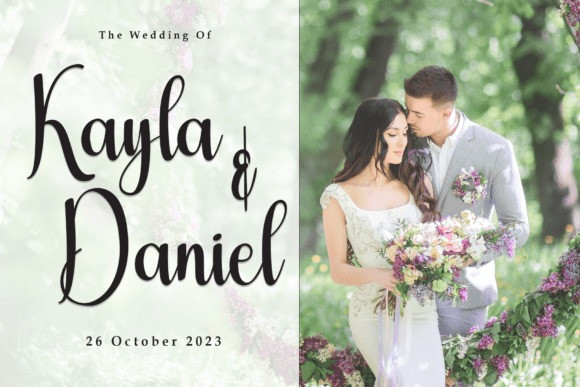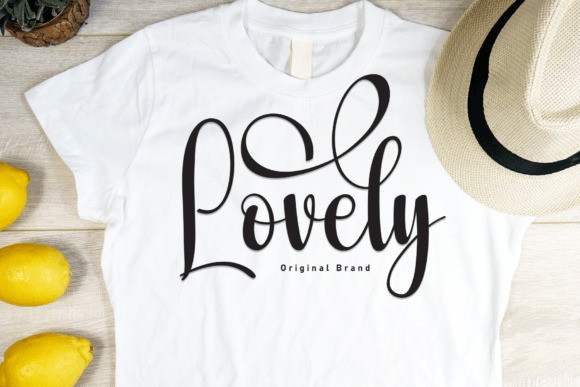
Umbrella Script Font
Umbrella Script Font is a charming handwritten font adorned with graceful swashes, adding a touch of elegance to your text. Its flowing strokes capture the beauty of handcrafted writing, making it perfect for projects that demand a hint of sophistication and a dash of personal flair.